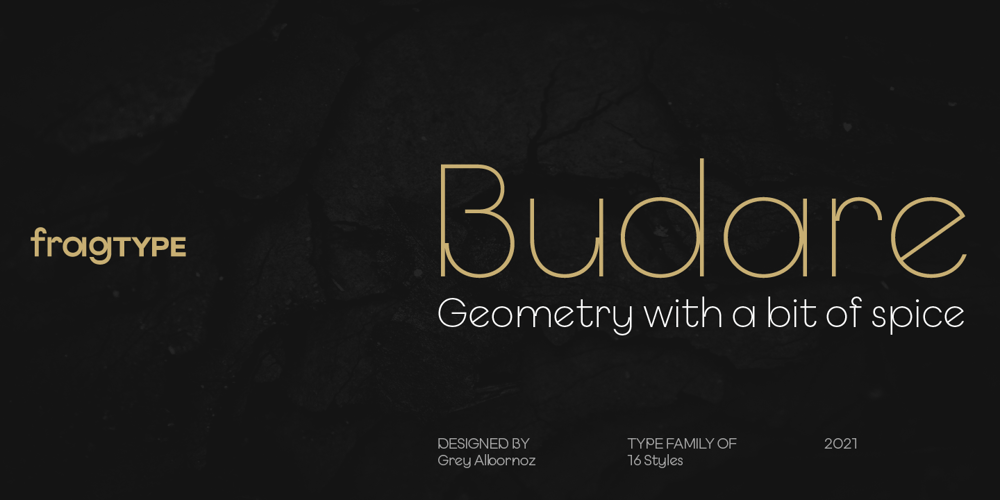
Budare Font Family was designed by Grey Albornoz and published by fragTYPE. Budare contains 16 styles and family package options. Budare is a geometric font family that rebelled to find its own identity within an ocean of other typefaces of the same style. Its design is based on the shape of the wrought iron plate used in Venezuela and other countries to make arepas and other foods.Its appearance is strongly defined by basic geometric shapes such as the circle and its upright style is accompanied by rotated italics “rotalics” that complement its rebellious spirit.Because of its strong display characteristics, its best uses are focused on posters, branding, titles and anything that needs a strong graphic emphasis.